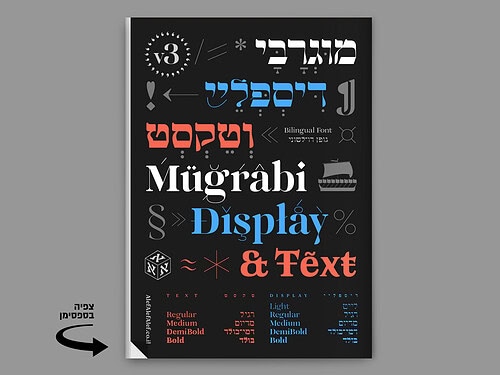
רבייבל לפונט קלאסי בעל קשר חזק לאות היוגנדסטיל שרווחה בדפוס היהודי באירופה
Mugrabi is divided into two complementary versions: Mugrabi Display for headlines and Mugrabi Text for running text.
תחיה לפונט קלאסי מתוך קטלוג בצלאל
הוא מאופיין בקונטרסט רב בין הקווים האופקיים לאנכיים, ובמבנה מרובע ומעוטר.
Mugrabi originated from a classic Hebrew typeface found in the Bezalel catalog under the name “Sefardi.” Its revival was inspired by vintage posters for films shown at Tel Aviv’s iconic Mugrabi Cinema.
Mugrabi is a bilingual expansion of one of the most beloved typefaces in the AlefAlefAlef library. The family is divided into two complementary versions: Mugrabi Display for headlines and Mugrabi Text for running text.
Mugrabi originated from a classic Hebrew typeface found in the Bezalel catalog under the name “Sefardi.” Its revival was inspired by vintage posters for films shown at Tel Aviv’s iconic Mugrabi Cinema. Although little is known about the typeface or its original designer, its forms clearly reflect the influence of the Jugendstil letterforms that were common in Jewish printing across Europe.
The new release includes an original Latin companion and preserves the distinctive tension between strong verticals and delicate horizontals, adapting Mugrabi’s unique character for contemporary multilingual typography.
• dlig אשכרה → אשכרה
• עץ אל וגם ששש יי ff ft gg
• ss01 ע → ע
• ל → ל
• @ → @
• 4 1 → 4 1
• Default & & & ₪ ₪ ₪
• jalt ﬡבﬢﬣחﬤﬥﬦﬧﬨ
• swsh בראשית → בראשית
• tnum 12,345,678.90 → 12,345,678.90
• Default ⁕ ♥ ❣ ⁆ ❞ ¶ ⛵ ✱ ॐ